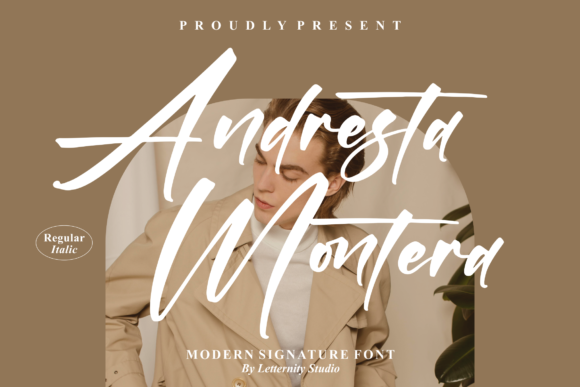
The Quest for the Perfect Script Font: Discovering Andresta Montera
Ah, the eternal search for the perfect script font. I recall working on a branding project for a luxury candle company, determined to create a logo that exuded elegance and sophistication. The client wanted a font that would make their brand stand out, but I was struggling to find the right fit. That was until I stumbled upon Andresta Montera, a beautiful script font that has since become a staple in my design toolkit.
Andresta Montera: A Beautiful Script Font for Creative Projects
Andresta Montera is a stunning script font, suitable for a wide range of projects, including logos, branding projects, homeware designs, product packaging, mugs, quotes, posters, shopping bags, t-shirts, book covers, name cards, invitation cards, greeting cards, labels, photography, watermarks, special events, and more. Its elegant and refined aesthetic makes it an excellent choice for designers, crafters, and creative hobbyists looking to add a touch of sophistication to their work.
• ✨ Elegant and refined aesthetic, perfect for high-end branding projects
• ✅ Extensive character set, including support for multiple languages
• ✅ Beautifully crafted swashes and flourishes
While Andresta Montera is an exceptional font, there are a few things to keep in mind:
• ⚠️ Some users may find the font a bit too ornate for certain projects
• 🤔 Limited availability of certain glyphs and stylistic alternates in certain applications
The Story Behind Andresta Montera
Andresta Montera was designed by a talented type designer who’s passionate about creating beautiful, functional fonts. The font’s elegant aesthetic is inspired by traditional calligraphy and lettering techniques, with a modern twist. The result is a font that’s both refined and versatile, perfect for a wide range of creative projects.
Q: What type of projects is Andresta Montera best suited for?
A: Andresta Montera is suitable for a wide range of projects, including logos, branding projects, homeware designs, product packaging, and more.
Q: Is Andresta Montera easy to read?
A: Yes, Andresta Montera is highly legible, even at small font sizes.